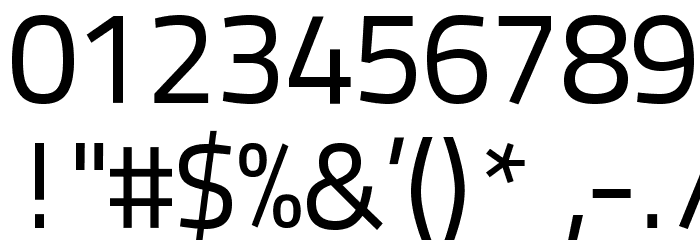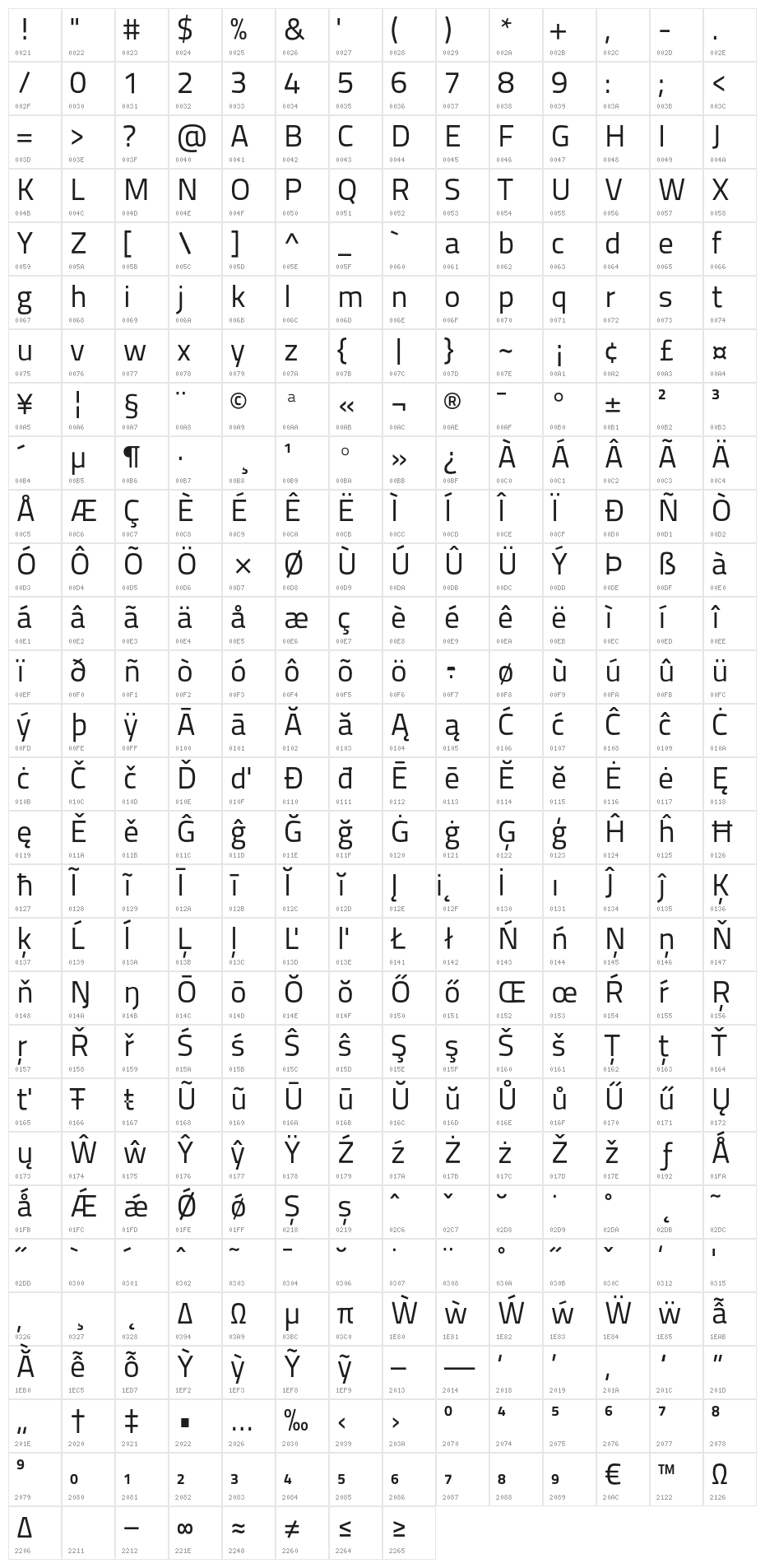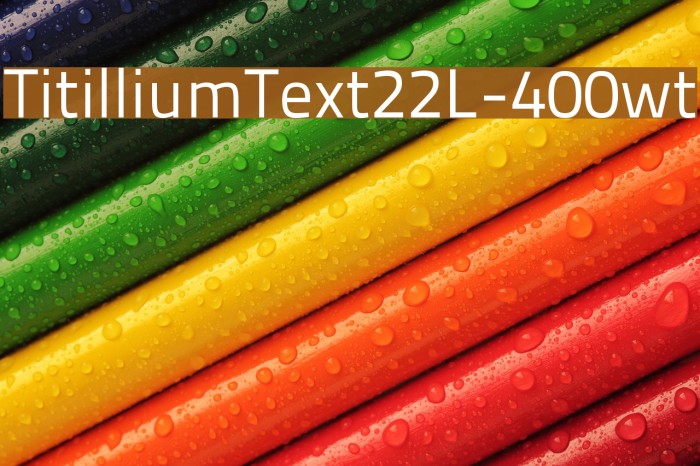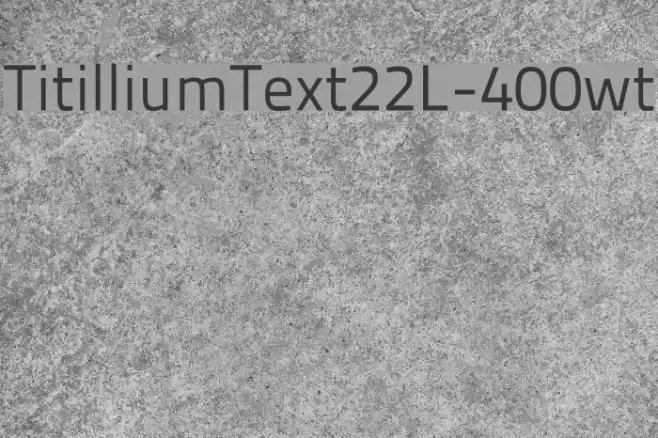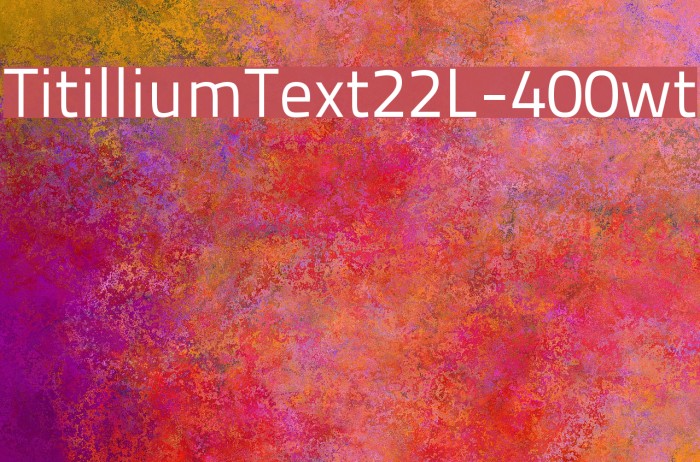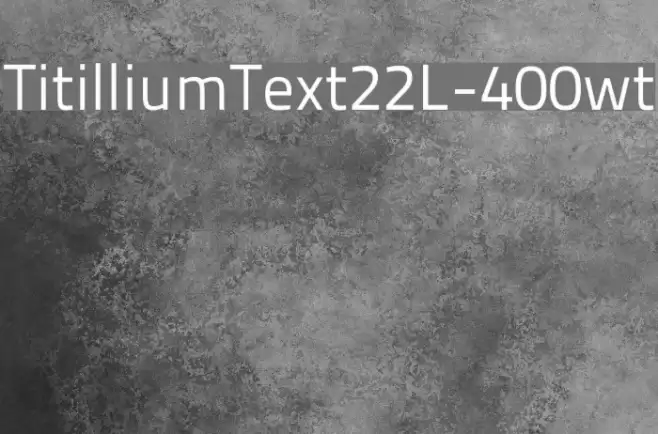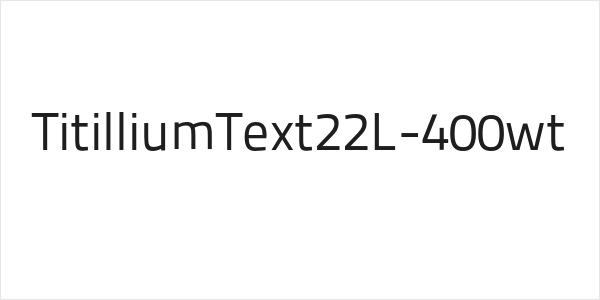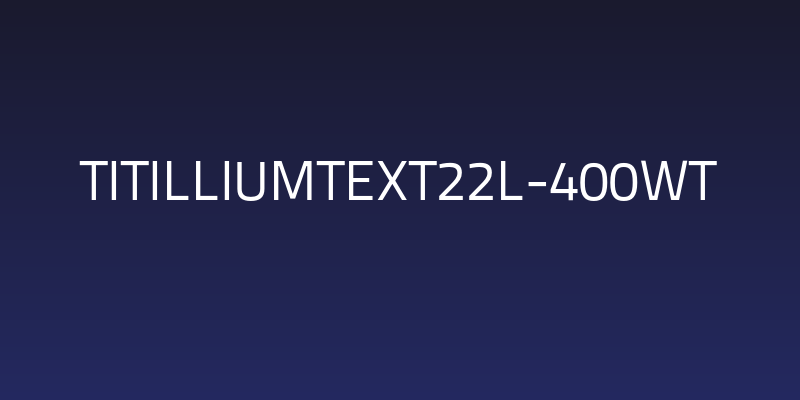
TitilliumText22L-400wt Font
TitilliumText22L-400wt Description
This font features a clean and modern sans-serif design with a geometric structure. The characters are well-balanced, offering a harmonious appearance that is both professional and approachable. The uppercase letters are bold and assertive, while the lowercase letters maintain a friendly and open feel. The numerals are clear and easily distinguishable, making them suitable for a variety of applications. Special characters are designed with precision, ensuring consistency across the font. The overall style is versatile, making it suitable for both digital and print media.
Use CaseHeadlines, Body text, Logos
Proposed ProjectsIdeal for branding, web design, editorial layouts, and corporate materials.